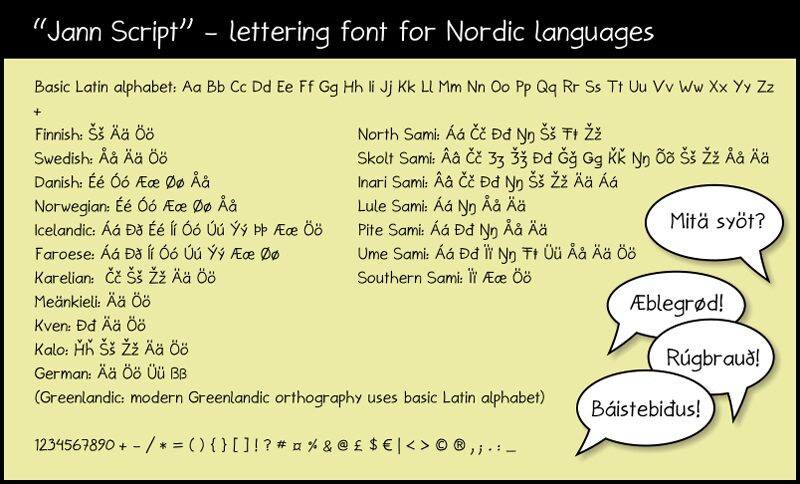
Jann Script Bold is a captivating handwritten font designed by Jann Kuusisaari. With its semi-bold weight, it brings a touch of elegance and playfulness to any project. This versatile typeface is perfect for creating eye-catching logos, branding materials, and invitations. It effortlessly adds a personal and unique feel to wedding stationery, while also lending itself beautifully to product packaging design. Whether you're working on a modern blog header or crafting an exquisite greeting card, Jann Script Bold will infuse your creations with charm and sophistication. Let your creativity flow with this delightful font!
Lettering font. Basic Latin alphabet extented with characters used in Nordic languages. Designet by Jann Kuusisaari. Created using FontCreator from High-Logic.